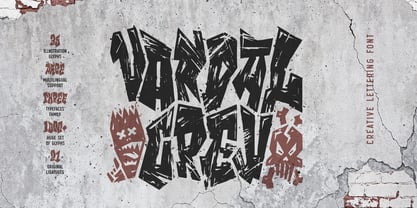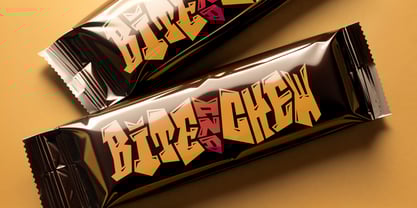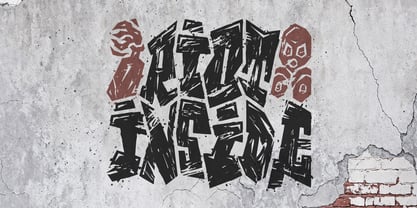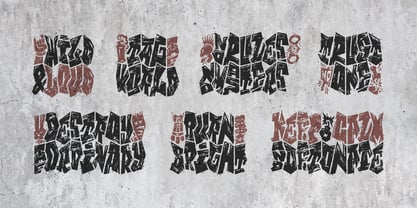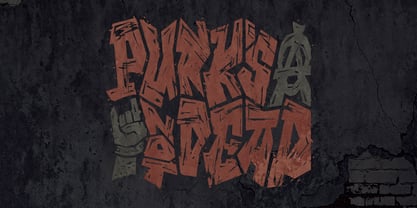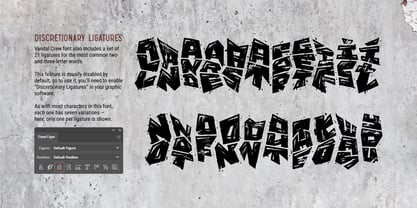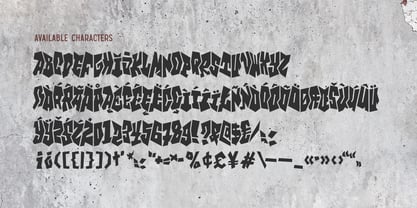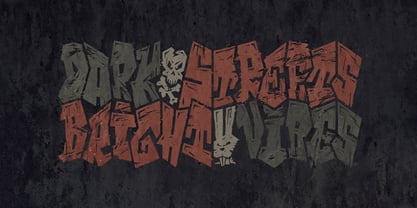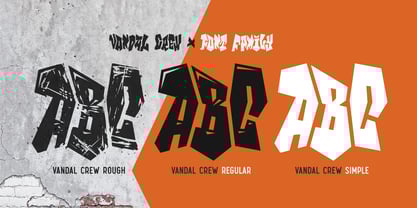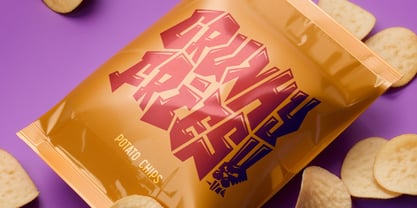
Vandal Crew
by Gleb Guralnyk
The Vandal Crew Font Family was designed by Gleb Guralnyk and published by Gleb Guralnyk. Vandal Crew contains 3 styles and family package options.
Unleash your inner rebel with Vandal Crew font — raw, loud, and full of attitude. Its rough edges and chaotic rhythm bring instant energy to any design. Perfect for creating bold, one-of-a-kind lettering that breaks every rule and owns the scene. This font has unique features — 7 variations for most characters, giving your text a tight, natural lettering effect. Each letter is designed to fit seamlessly with the others, forming one organic piece. Vandal Crew also includes a set of 35 special characters with fun, thematic illustrations. You can access them through the “Standard Ligatures” OpenType feature — just type “star” followed by a number from 1 to 5 (Like that — *1). Vandal Crew font family includes three typefaces: Rough, Regular & Simple. Please make sure that OpenType features are available and enabled in your software.
A lot of my fonts inherits vintage graphic styles but nevertheless I don't like to stick to one theme for a long time. That's why I'm trying to create fonts in different styles and from different eras, from old gothic calligraphic to modern handwritten scripts, from medieval antique to minimalist sans-serif typefaces. It's always interesting to design something new, and expand my skills in novel font design directions.